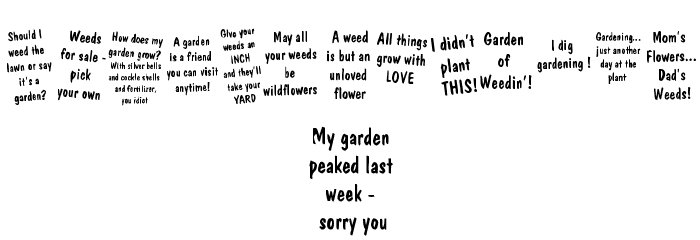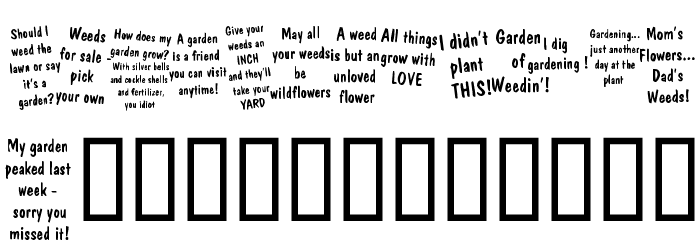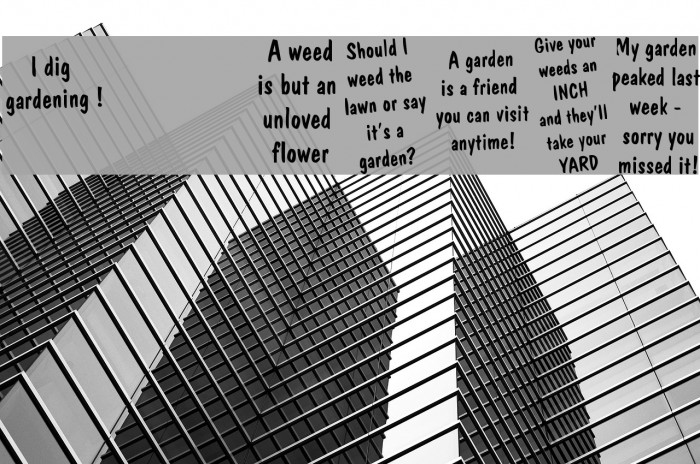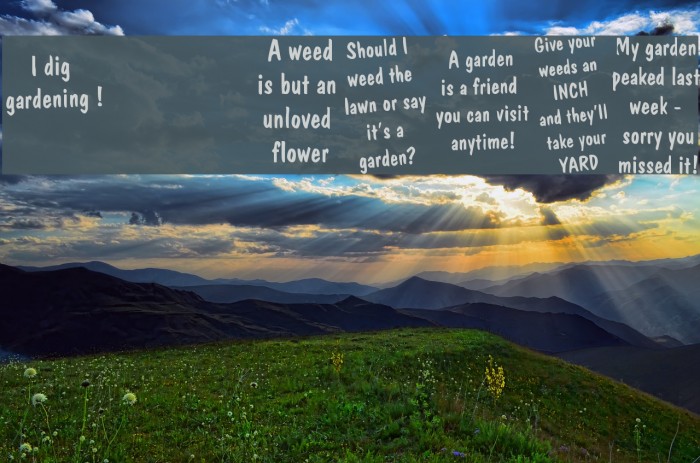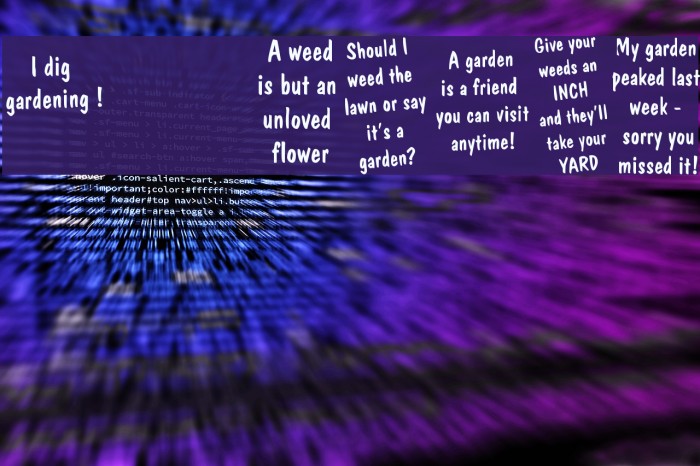
KR Gardenz Font
This font features a playful and whimsical style, characterized by its irregular and quirky letterforms. The letters have a hand-drawn appearance, with varying stroke thicknesses that add to its informal and friendly vibe. The font includes both uppercase and lowercase letters, as well as numbers and a selection of special characters. Its unique style makes it stand out, with each character having its own distinct personality. The overall design is casual and fun, making it suitable for projects that require a touch of creativity and individuality.
A playful, hand-drawn font with quirky, irregular letterforms.
- Proposed Projects: Ideal for children's books, greeting cards, playful branding, and creative posters.
- Use Case: Headlines, Logos, Creative projects